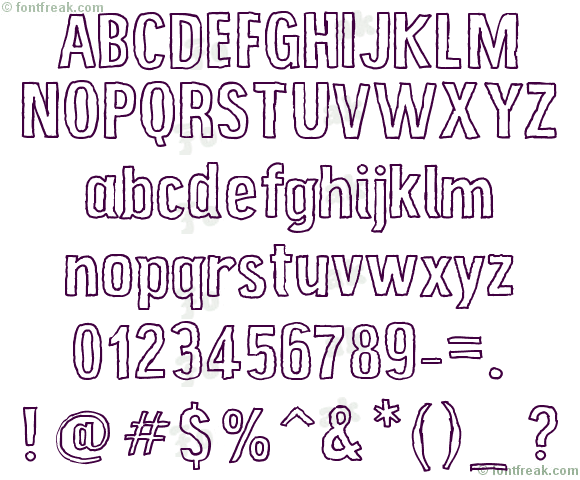
Grunge Poster
The Grunge Poster font, designed by Galdino Otten Fonts in 2013, is a distinctive display typeface that captures the essence of vintage and urban aesthetics. With its rough edges and uneven strokes, this font embodies a grunge style that is both dynamic and eye-catching. The playful nature of the typeface is accentuated by its medium stroke weight, which varies slightly to create a sense of movement and texture. The spacing is intentionally loose, allowing each character to breathe while maintaining a cohesive look.
This font shines in various applications, making it an ideal choice for graphic designers and content creators. It is particularly well-suited for movie posters, where its bold and edgy appearance can evoke excitement and intrigue. Additionally, Grunge Poster works wonderfully for music event flyers, providing a rebellious spirit that resonates with the audience. Small business owners can also utilize this font for promotional materials, such as restaurant menus or café signage, helping to establish a unique brand identity. Furthermore, it can be effectively used in social media graphics, adding a striking visual element to posts and advertisements.
The target audience for the Grunge Poster font includes graphic designers seeking to inject personality into their projects, small business owners aiming to create memorable branding, and content creators looking for a versatile typeface that stands out.